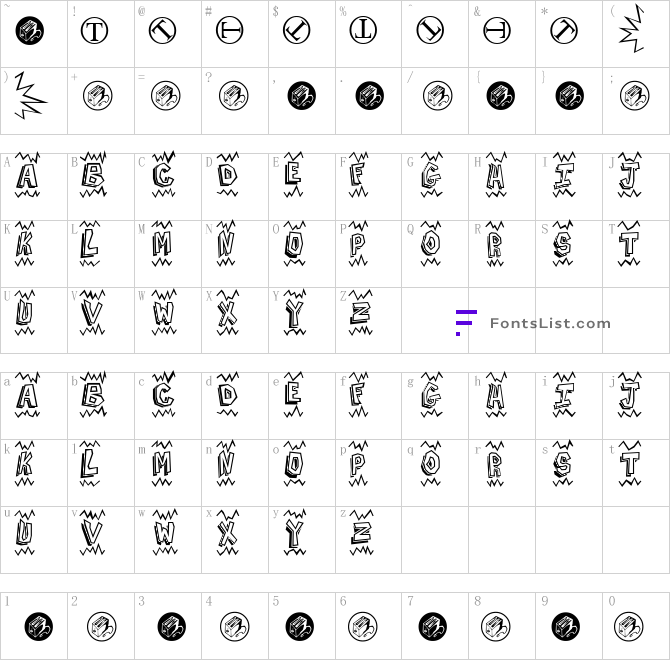
- Font Name:Batman Beat the hell Outta Me
Batman-Beat-the-hell-Outta-Me.ttf is a very beautiful artistic font, Batman-Beat-the-hell-Outta-Me.ttf is widely used in the design and printing of various books and pictures,Batman-Beat-the-hell-Outta-Me.ttf has a strong visual impact,Batman-Beat-the-hell-Outta-Me.ttf is a commonly used font in newspapers, magazines and books, and is used in posters, e-commerce Poster design, store design, logo design, font design and other fields.Batman-Beat-the-hell-Outta-Me.